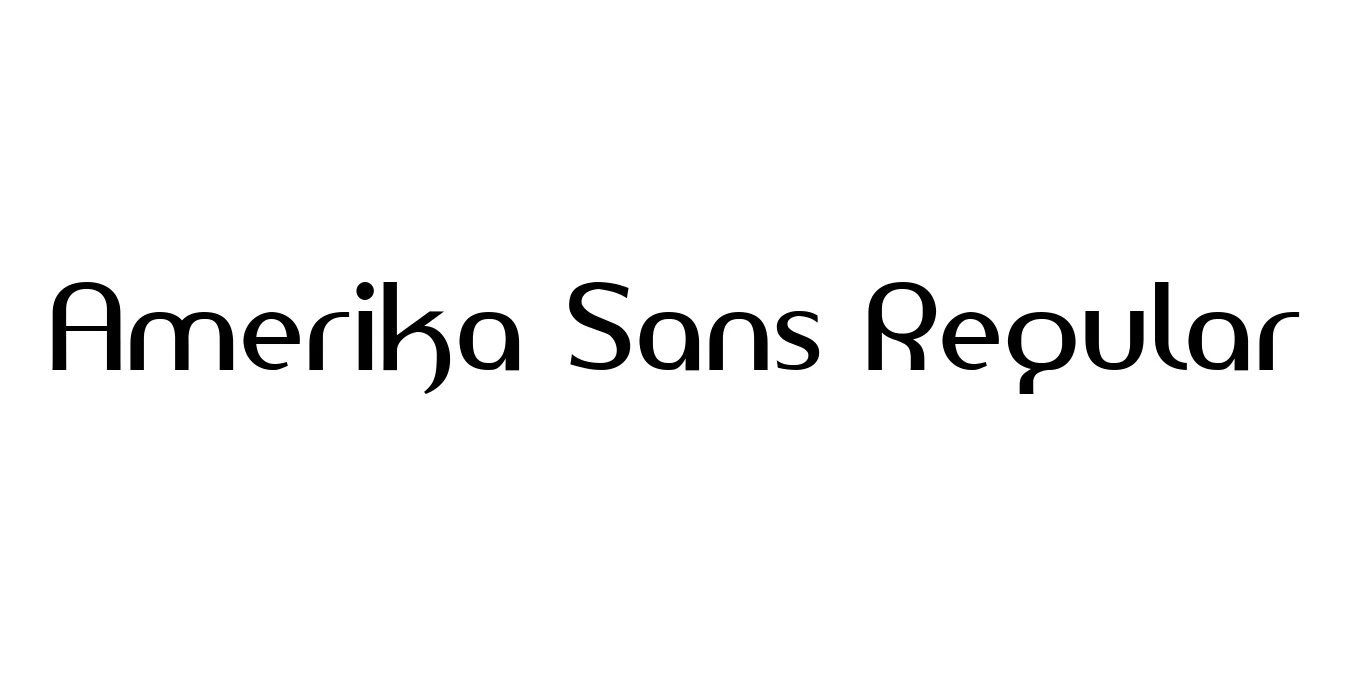
Amerika Sans Regular
Designed by James Cass and Michael Gene Adkins (The Fontry)
Amerika Sans Regular is a versatile sans-serif typeface crafted by the creative team at The Fontry. This font takes heavy inspiration from the bold and clean industrial signage that defined mid-20th-century American commercial art. By blending a utilitarian aesthetic with modern design sensibilities, it provides a balanced and authoritative look that works across multiple media platforms.
The typeface is characterized by its geometric proportions and high degree of legibility, making it suitable for both digital screens and high-quality print. Its neutral yet confident personality allows it to function as a workhorse font for designers who need a reliable, professional-grade typeface that conveys stability and modernism without being overly decorative.
Amerika Sans Regular Best Uses
Ideal for creating a trustworthy and stable corporate identity.
Perfect for clear navigation menus and readable body copy.
Highly effective for bold advertising posters and promotional banners.
Provides a clean, professional look for product labels and information.